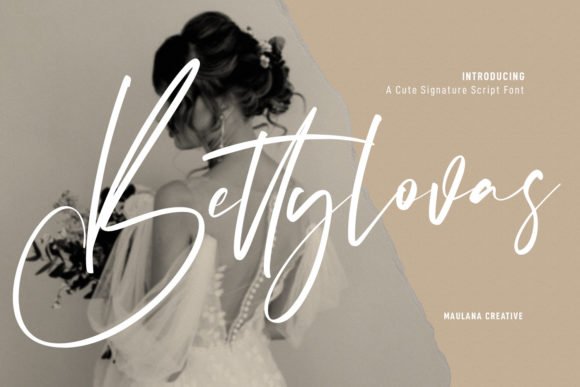
Discover the Timeless Charm of Bettylovas Font
Remember the moment when a single font choice transformed your design from ordinary to extraordinary? For many creatives, this is the thrill of the design process – finding that perfect font to elevate their project. One such gem is the Bettylovas Font, a stylish and delicate script font that adds a touch of elegance to any design.
Whether you’re working on a blog post, social media campaign, or branding project, Bettylovas Font is an excellent addition to your font library. Its versatility and trendy vibe make it perfect for designers seeking to infuse their creations with a modern feel. With Bettylovas Font, you’ll be able to create visually appealing designs that capture the attention of your audience.
Bettylovas Font Key Features
• Font Family: Bettylovas Font is a unique, handwritten font family designed for various purposes, including invitations, quotes, and titles.
• Character Set: Includes a wide range of characters, including uppercase and lowercase letters, numbers, and special characters, making it suitable for various languages.
• Unique Characteristics: Bettylovas Font features a beautiful, handwritten style with unique flourishes and swashes, making it perfect for adding a personal touch to designs.
Designer Review: Bettylovas Font
Overall, I have mixed feelings about the Bettylovas Font. While it has some lovely qualities, there are also some limitations that might make it less suitable for certain projects.
• Unique aesthetic: Bettylovas Font has a charming, vintage vibe that can add a touch of whimsy to your designs.
• High legibility: The font is well-designed for body text, making it easy to read in a variety of contexts.
• Good for headings: The font’s bold weights and quirky details make it a great choice for headings and titles.
• Not suitable for formal projects: The font’s playful nature might not be suitable for formal or professional projects, such as business reports or academic papers.
• Limited language support: Bettylovas Font might not include all the characters and languages you need for a multilingual project.
• Not ideal for small text: The font’s unique details can make small text sizes difficult to read.
Overall, I think Bettylovas Font is a great choice for projects that need a playful, vintage vibe. However, it’s not a one-size-fits-all solution, and you should carefully consider its limitations before using it in your designs.
Tips for Getting the Most Out of Bettylovas Font
Use Bettylovas Font for titles, headings, and body text to create a consistent look throughout your design. Experiment with different font sizes and styles to create visual hierarchy and emphasis.
Bettylovas Font is perfect for:
• Wedding invitations and stationery
• Brand logos and identity
• Print materials, such as brochures and flyers
• Digital designs, such as social media graphics and email templates